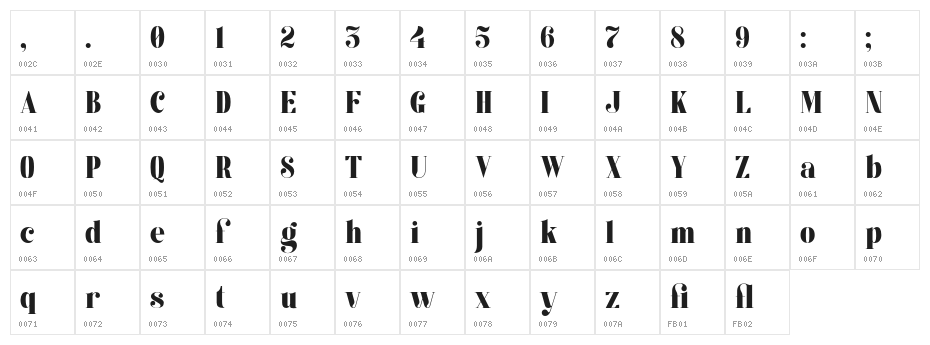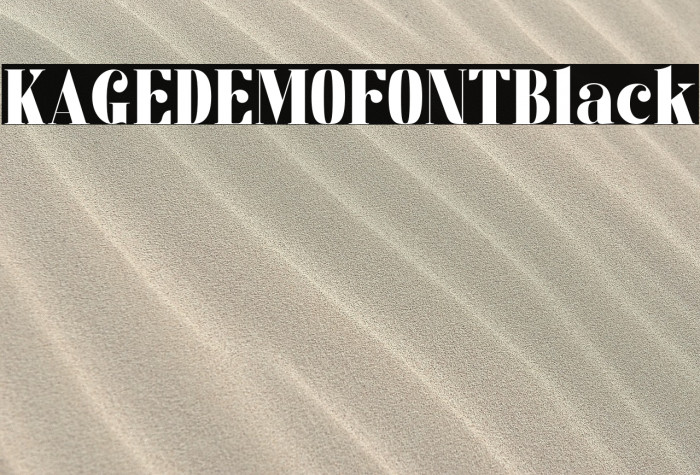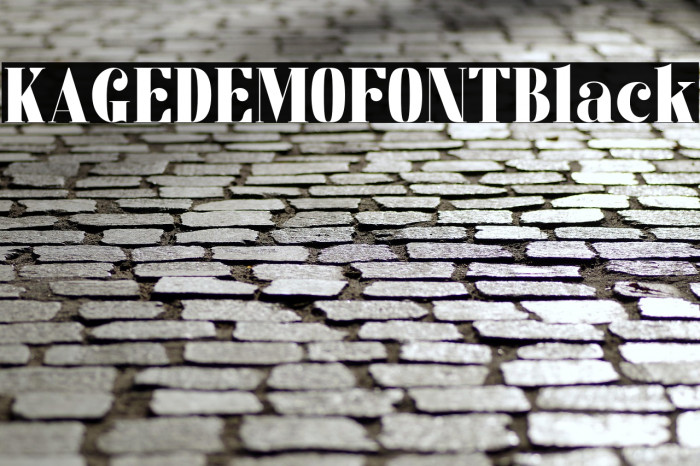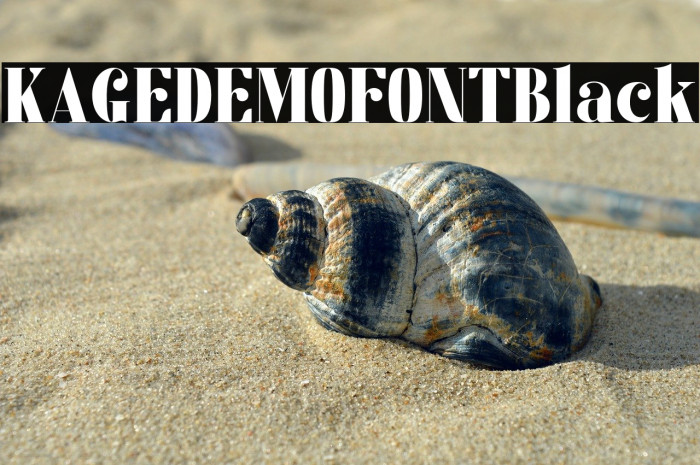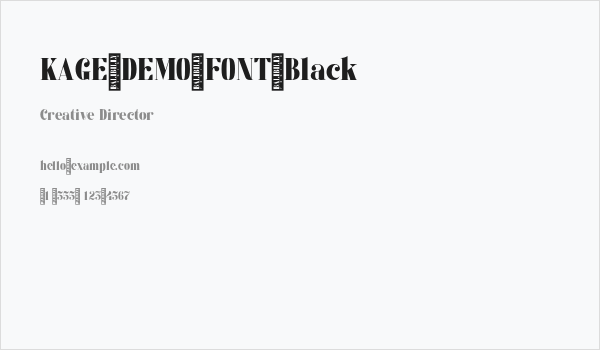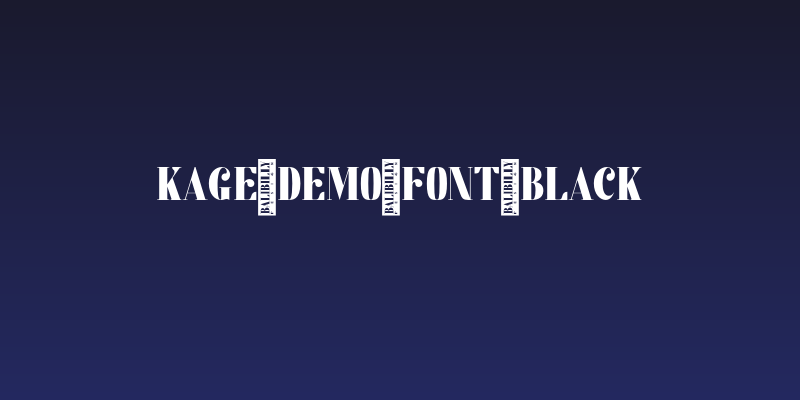
KAGE_DEMO_FONT-Black Font
KAGE_DEMO_FONT-Black Description
This font features a bold and striking design with high contrast between thick and thin strokes, giving it a dramatic and elegant appearance. The uppercase letters are particularly eye-catching with their strong vertical lines and subtle curves, while the lowercase letters maintain a consistent style that complements the uppercase. The numerals are equally bold, ensuring they stand out in any context. The special characters are designed to match the overall aesthetic, making this font versatile for various uses. Its unique style makes it suitable for projects that require a touch of sophistication and flair.
Proposed ProjectsIdeal for branding, posters, headlines, and editorial design where a strong visual impact is desired.